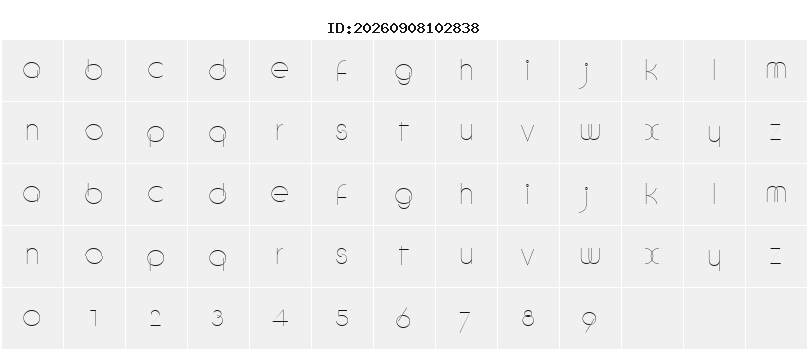
URWCichusD Preview
• Font Name: URWCichusD
About URWCichusD.ttf
URWCichusD.ttf is a modern, elegant sans-serif font designed for ultimate readability and visual harmony. Perfect for branding, headlines, web design, and print materials.